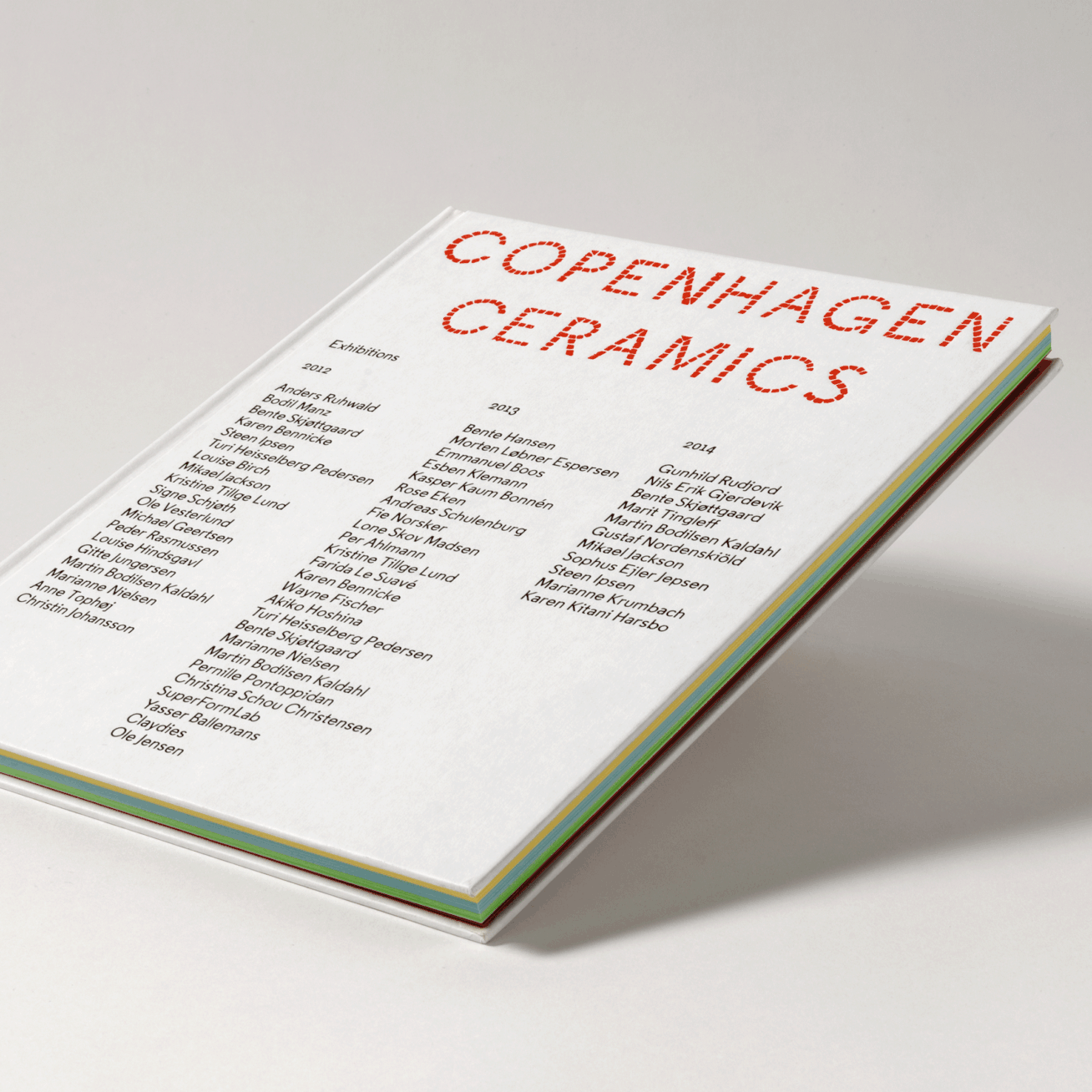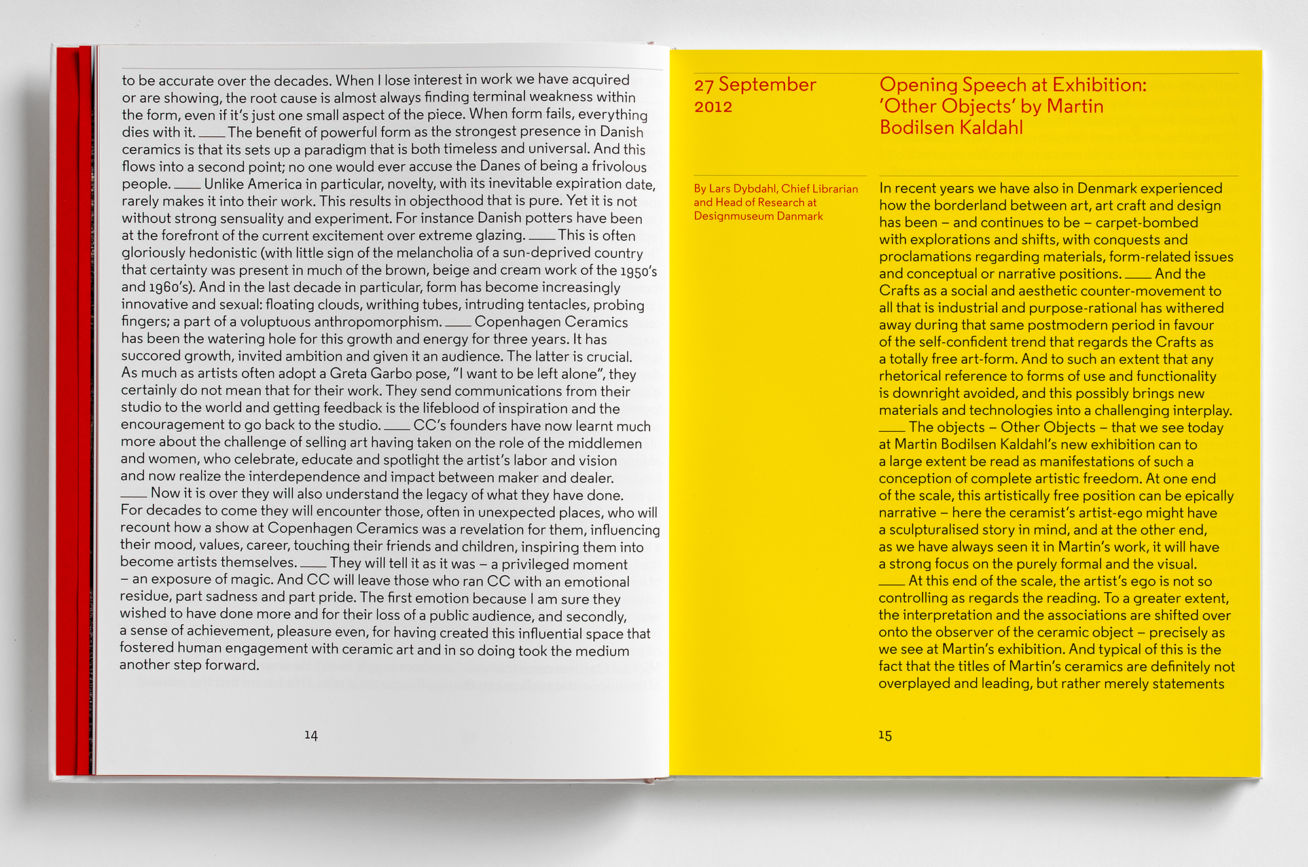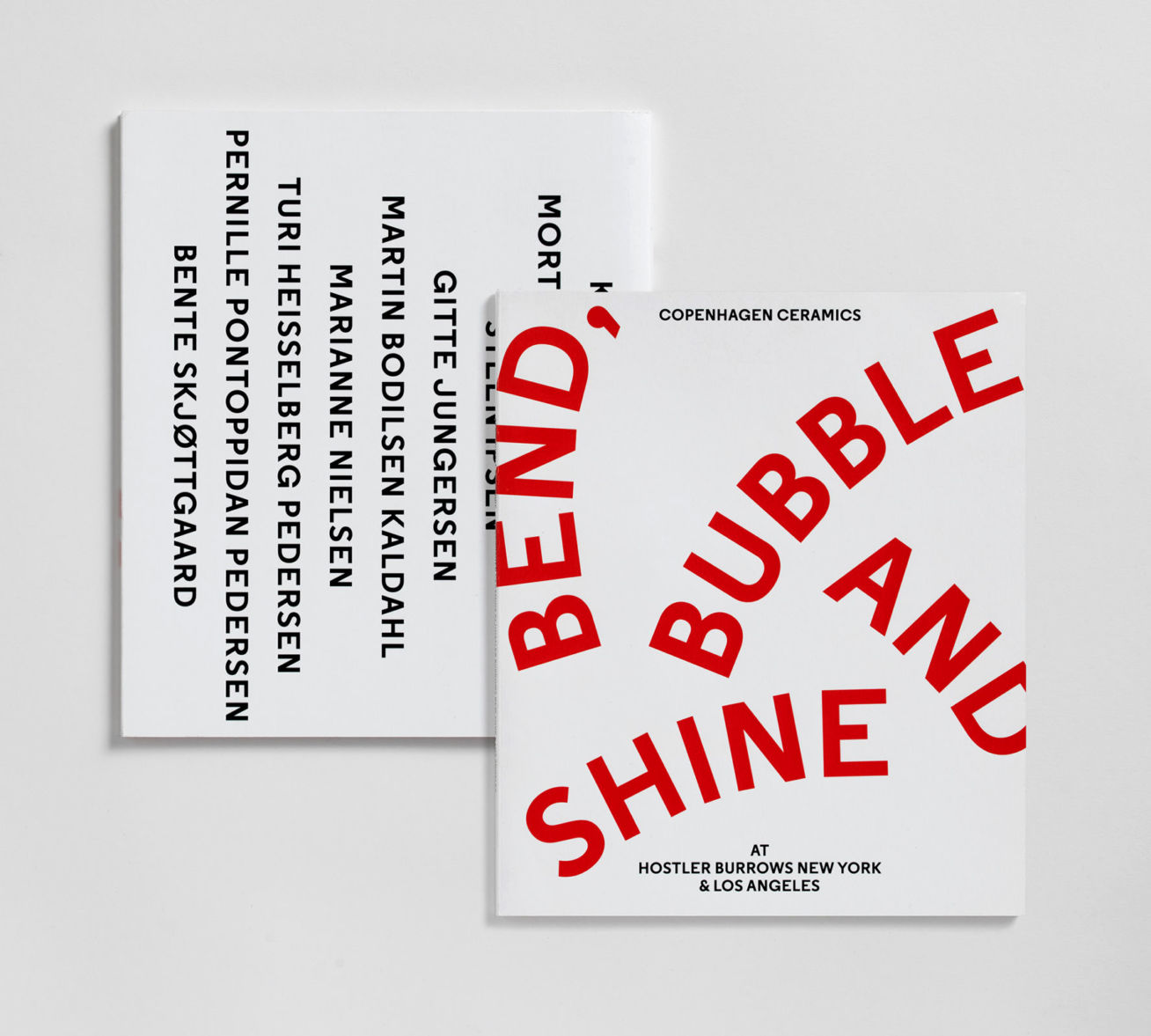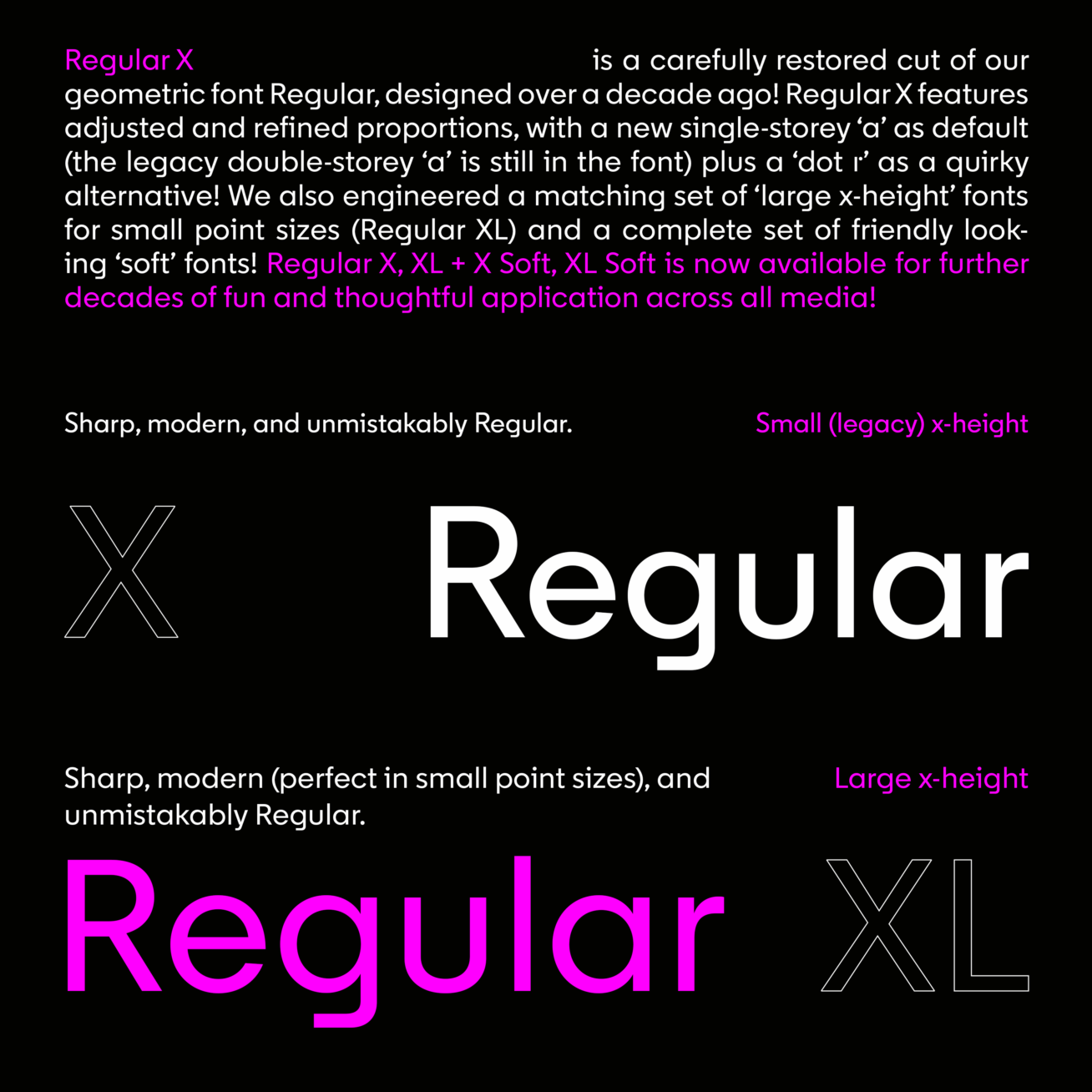
Regular X + XL
Regular X is a carefully restored cut of our geometric font Regular, designed over a decade ago! Regular X features adjusted and refined proportions, with a new single-storey ‘a’ as default (the legacy double-storey ‘a’ is still in the font) plus a ‘dot r’ as a quirky alternative! We also engineered a matching set of ‘large x-height’ fonts for small point sizes (Regular XL) and a complete set of friendly looking ‘soft’ fonts! Regular X, XL + Regular X Soft, Regular XL Soft is now available for further decades of fun and thoughtful application across all media! Design note: The double-storey a (legacy font) is available as an OT Feature: Stylistic Set 01. SS02 = dot r! The font pairs really well with its sister: Regular Slab — Please email if you require the legacy version of our Regular fonts.
Copenhagen Ceramics. Brand identity + Publication design by A2/SW/HK
Bend, Bubble and Shine. Exhibition catalogue for Hostler Burrows New York & Los Angeles. Design by A2/SW/HK, 2020